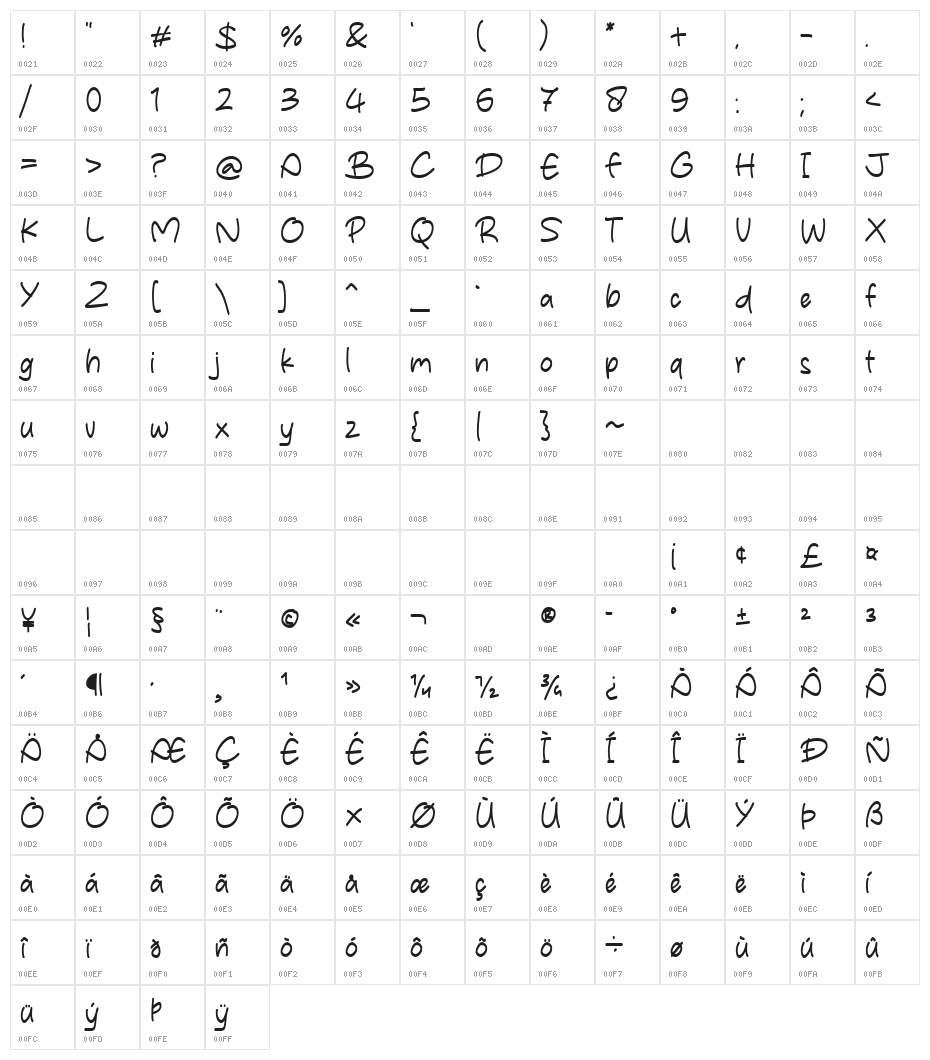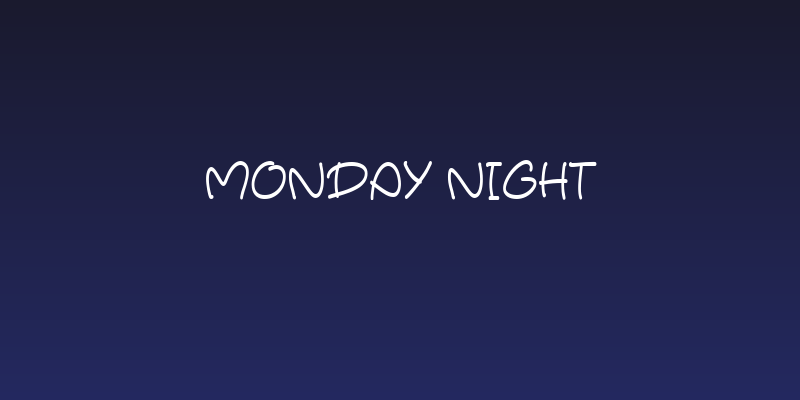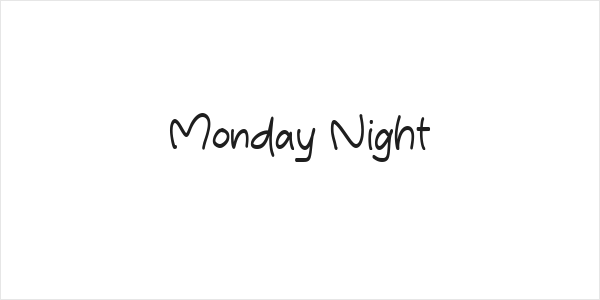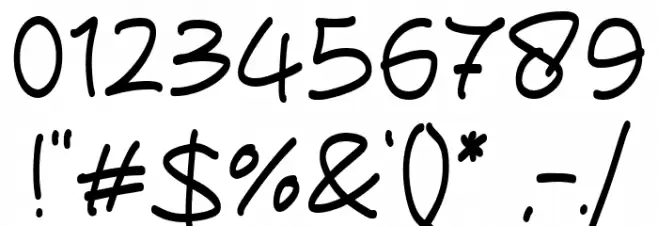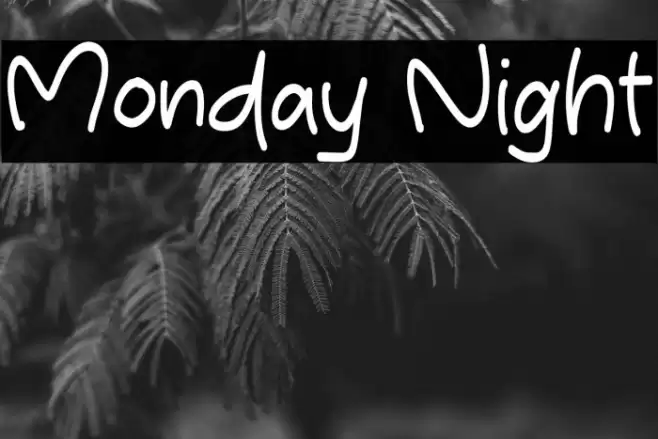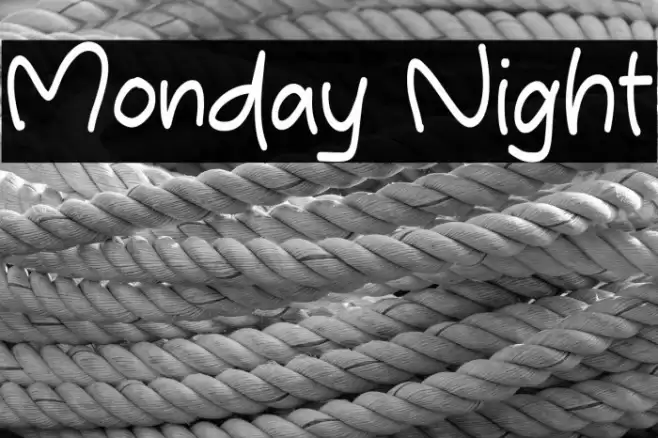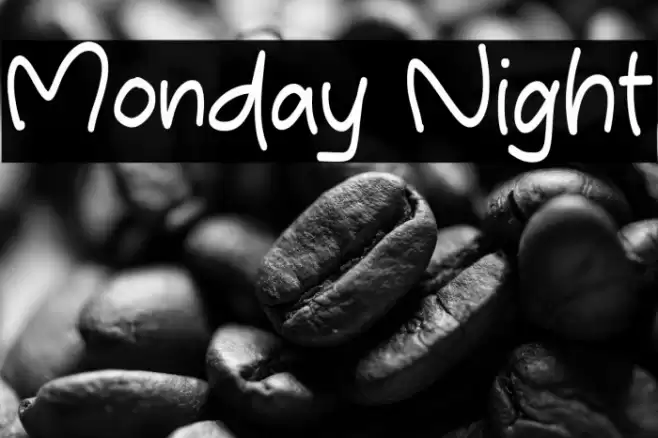
Monday Night Font
Monday Night Description
This font exudes a playful and casual handwritten style, characterized by its smooth, rounded strokes and slightly irregular letterforms. The uppercase and lowercase letters maintain a consistent flow, giving it a friendly and approachable appearance. The numerals and special characters are designed to complement the overall style, ensuring readability and coherence. Its informal nature makes it suitable for projects that require a personal touch or a relaxed vibe.
| Use Case | Headlines, Informal text, Personal projects |
| Proposed Projects | Ideal for greeting cards, children's books, casual branding, and social media graphics. |